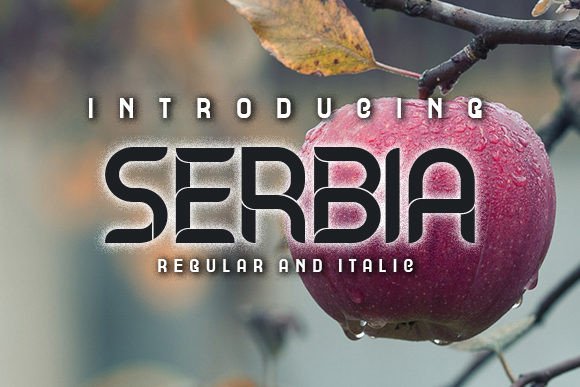
Introducing Serbia Font, a stunning display font that will add an elegant and chic touch to your creative projects. Expertly crafted by the talented vladimirnikolic, Serbia Font is a masterpiece that exudes sophistication and timeless beauty.
Immerse yourself in the world of Serbia Font, where each letter is a work of art, meticulously designed to capture the essence of elegance and grace. Its smooth curves and sharp edges create a harmonious blend of classic and modern aesthetics, ensuring that your designs stand out from the crowd.
With Serbia Font, you'll have a versatile tool at your disposal, perfect for a wide range of projects. Create eye-catching posters that demand attention, design t-shirts that make a statement, and craft flyers that entice and intrigue. Serbia Font's versatility knows no bounds, allowing you to express your creativity in countless ways.
Whether you're a seasoned designer or just starting, Serbia Font is the perfect choice for those seeking to add a touch of sophistication to their work. Its user-friendly design makes it easy to incorporate into any project, and its stunning appearance will leave a lasting impression on your audience.
Don't settle for ordinary fonts that blend into the background. Embrace the beauty and elegance of Serbia Font and watch your creative projects transform into captivating masterpieces. Experience the difference that a truly exceptional font can make.